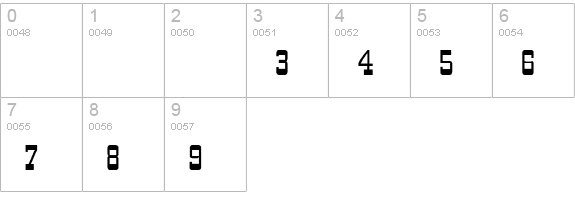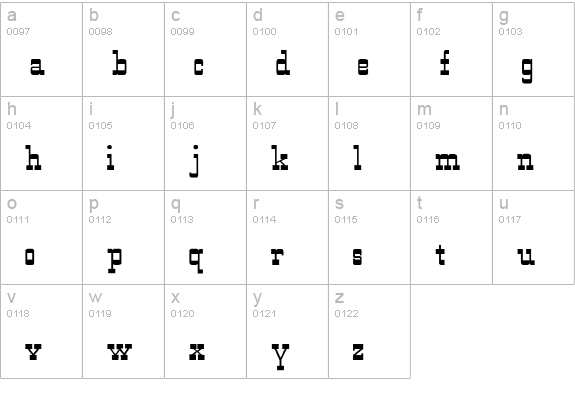
OldeWest-Normal Font Details
OldeWest-Normal is the standard, neutral variant in the OldeWest typeface family \xE2\x80\x94 well suited to general body text, paragraphs, and standard typographic work.
Introducing OldeWest-Normal font, a timeless typeface that exudes a classic charm reminiscent of the Old West era. With its rugged yet elegant design, OldeWest-Normal font is perfect for adding a touch of vintage authenticity to your projects. This versatile font features a unique blend of old-world aesthetics and modern readability, making it ideal for a wide range of design applications. Whether you're working on a rustic branding project, creating vintage-inspired posters, or designing nostalgic invitations, OldeWest-Normal font is sure to leave a lasting impression. Best of all, OldeWest-Normal font is available for free download at FontsMarket.com. Get your hands on this stunning typeface today and add a touch of old-world charm to your designs!